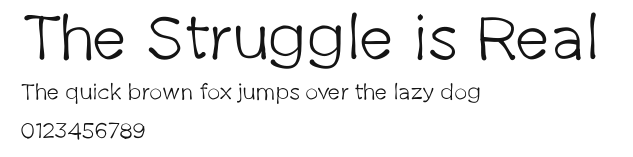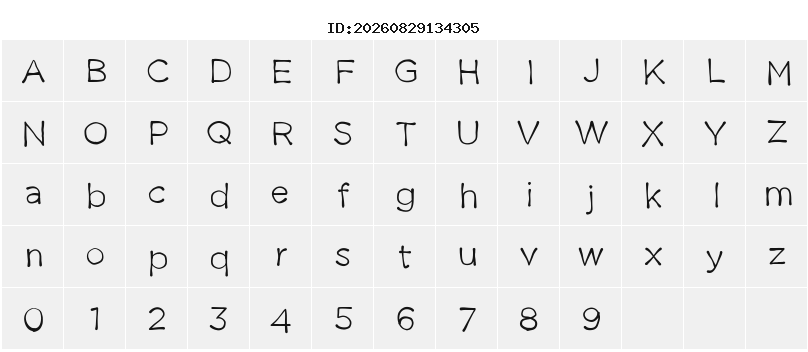
The Struggle is Real .ttf
• Font Name: The Struggle is Real
• Designer: Abbie Bess Meson, Bess Rebel Creative
About The Struggle is Real .ttf
The Struggle is Real .ttf is a modern, elegant sans-serif font designed for ultimate readability and visual harmony. Perfect for branding, headlines, web design, and print materials.